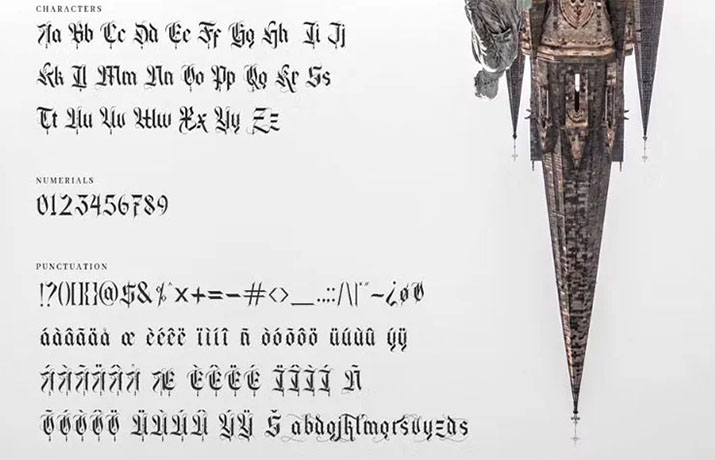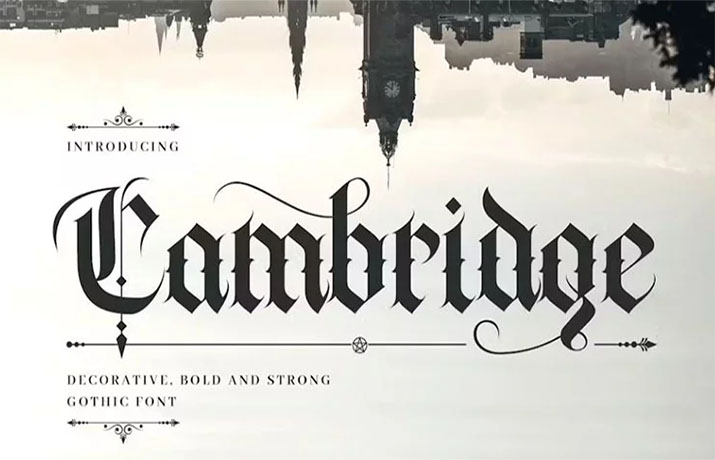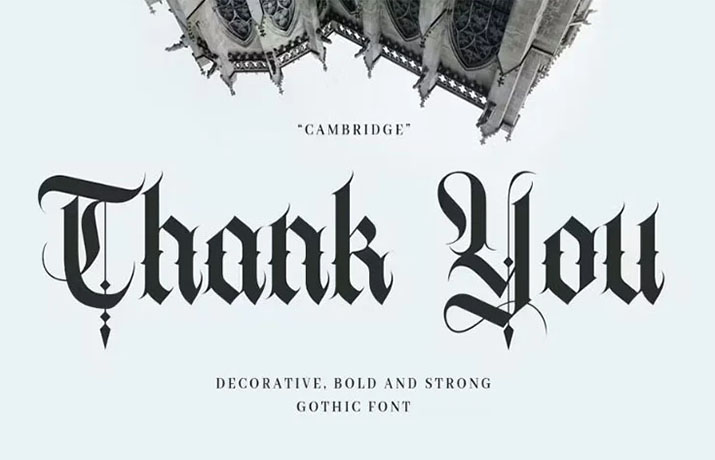
Cambridge Font is a bold hand-lettering decorative typeface that has a medieval gothic feeling. It was designed and shared by Nautica.
This font has a unique personality in the letters that features clean, sharp lines, and strong, well-proportioned characters.
Its medieval gothic lettering style makes it an ideal choice for any occasion such as a book, logo, print, game, event, music, branding, decorative elements, banners, headers, invitation, and others.
Cambridge typeface comes in a single weight that possesses OTF and TTF format. This style contains 177 glyphs, numbers, symbols, and a few punctuation marks. Moreover, it also supports 63 global languages.”
Style:Gothic, Medieval, Display
• This typeface can be used for many different things, such as designing gothic-themed t-shirts, branding, logo designs, signage, social media banners, posters, brochures, and signs. It can also be used for product design, special event cards, packaging, and branding. – banners, headers, ads, sports logos, branding, logo design, or even a gothic-themed poster. – bespoke tattoo writing.
What is Cambridge Font?
Cambridge Font is a bold hand-lettering decorative typeface that has a medieval gothic feeling. It was designed and shared by Nautica.